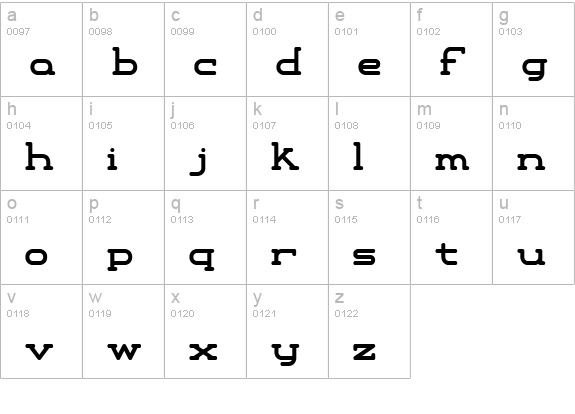
Xipital -BRK- Font Details
Xipital -BRK- font is a sleek and modern typeface that exudes professionalism and sophistication. With its sharp angles and clean lines, this font is perfect for creating eye-catching designs that demand attention. Whether you're working on a branding project, poster design, or website layout, Xipital -BRK- font will elevate your work to the next level. The best part? Xipital -BRK- font is absolutely free to download at FontsMarket.com. This means you can add this stylish font to your collection without having to break the bank. Don't miss out on the opportunity to enhance your designs with the elegance and versatility of Xipital -BRK- font. Download it today and start creating stunning visuals that leave a lasting impression.